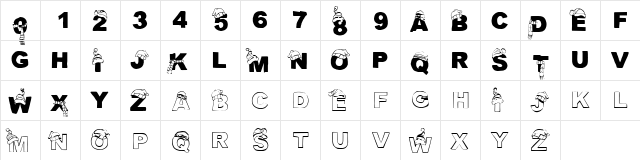
CF Tuques Regular
| Foundry | CloutierFontes |
| Designer | Steve Cloutier |
Design Context for CF Tuques Typeface
CF Tuques is a composed and adaptable typeface that performs quietly and consistently across a wide range of design contexts.